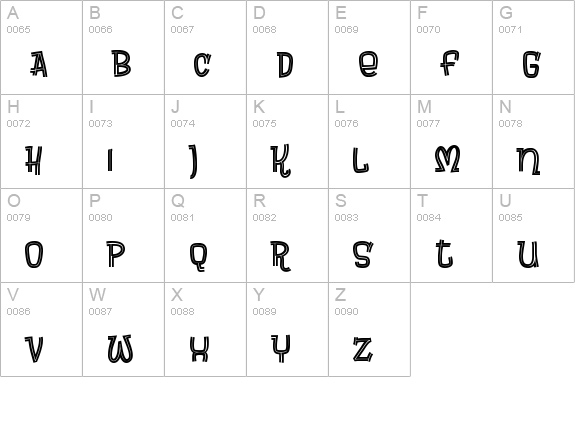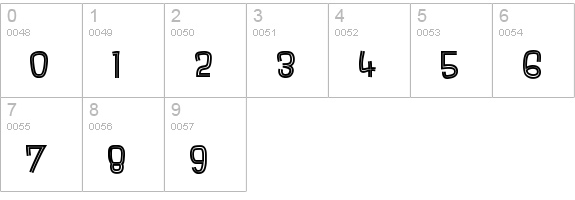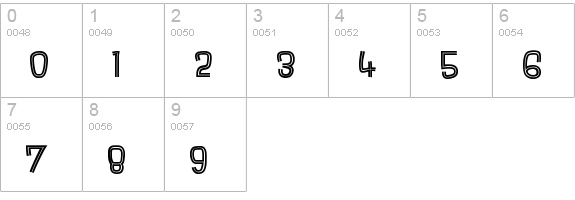
Brewsky Font Details
Brewsky font is a bold and expressive typeface that exudes a sense of adventure and excitement. Its strong, yet playful letterforms make it perfect for capturing attention and adding a touch of personality to any design project. With its unique combination of angular edges and smooth curves, Brewsky font strikes the perfect balance between modernity and classic charm. Whether you're creating a logo, poster, or website, this versatile font will bring a distinctive and memorable touch to your work. One of the best things about Brewsky font is that it is available for free. That's right, you can download this incredible font without spending a dime. Simply head over to FontsMarket.com, where you'll find Brewsky font waiting for you, ready to be used in your next creative endeavor. So why wait? Take advantage of this amazing opportunity to enhance your designs with the captivating Brewsky font. Download it for free at FontsMarket.com and let your imagination run wild. Cheers to creativity!